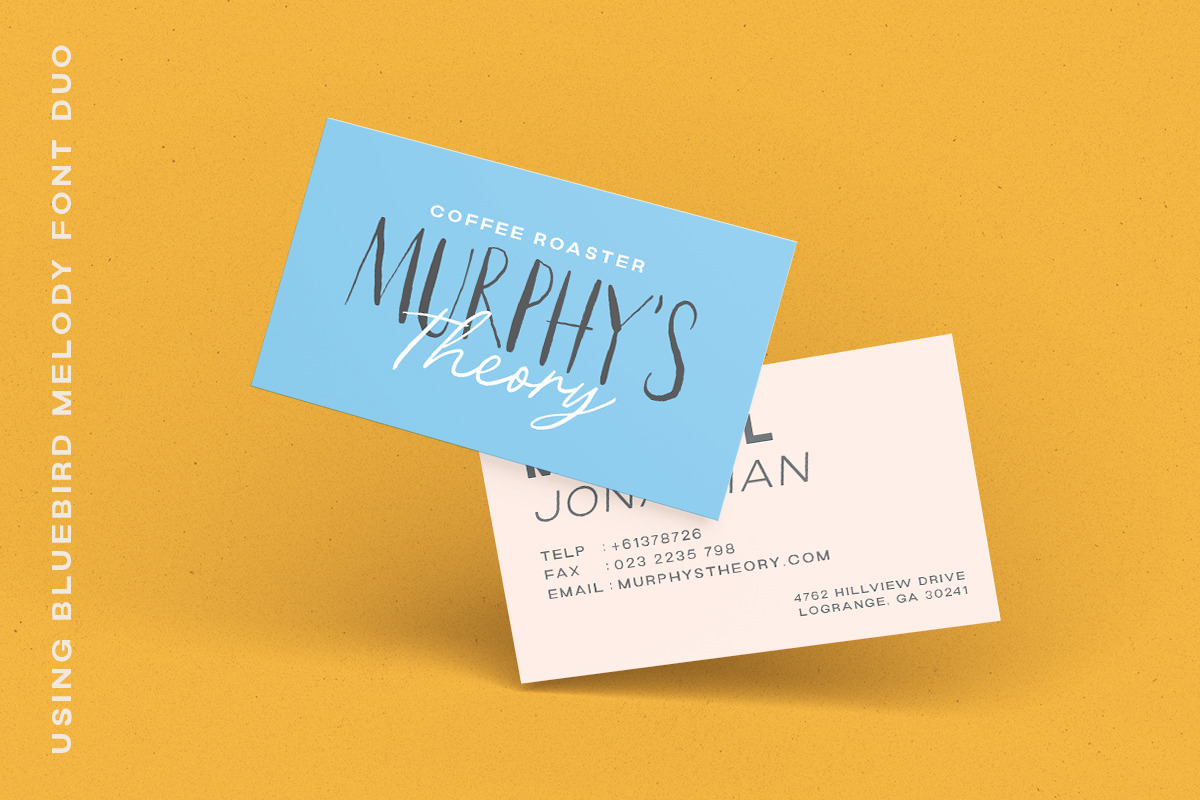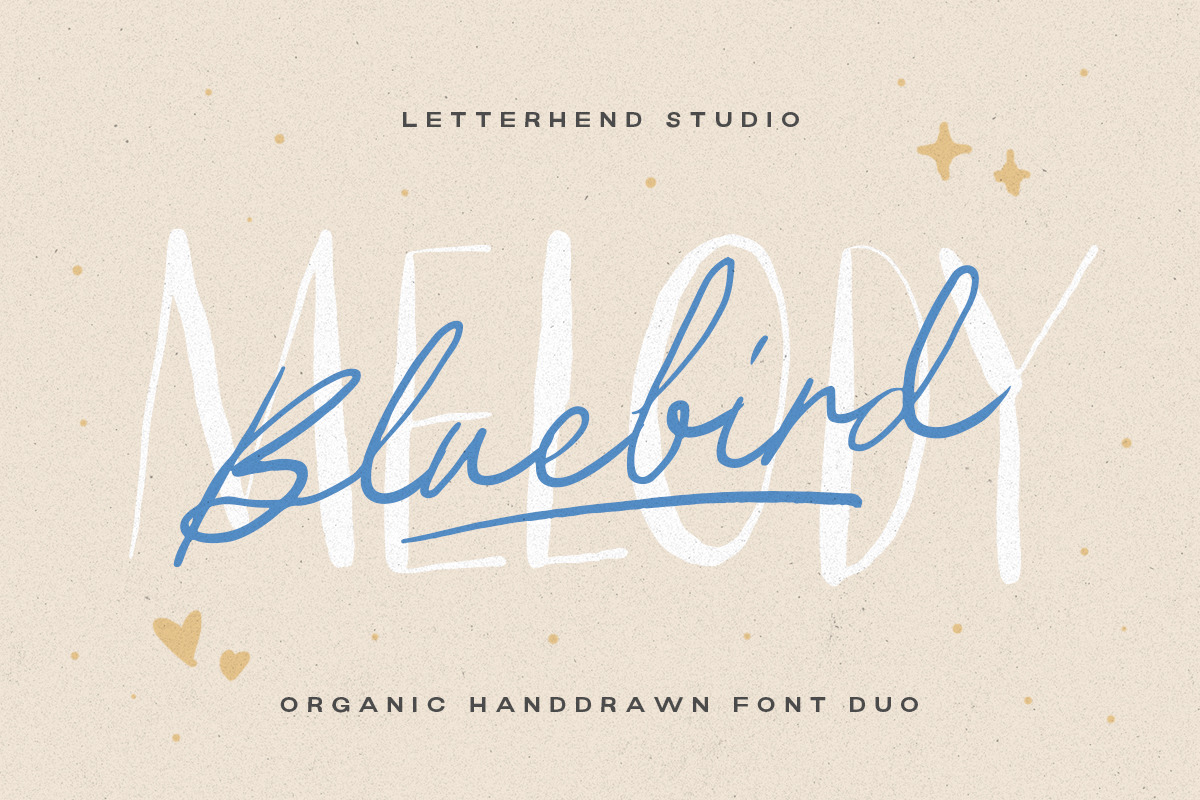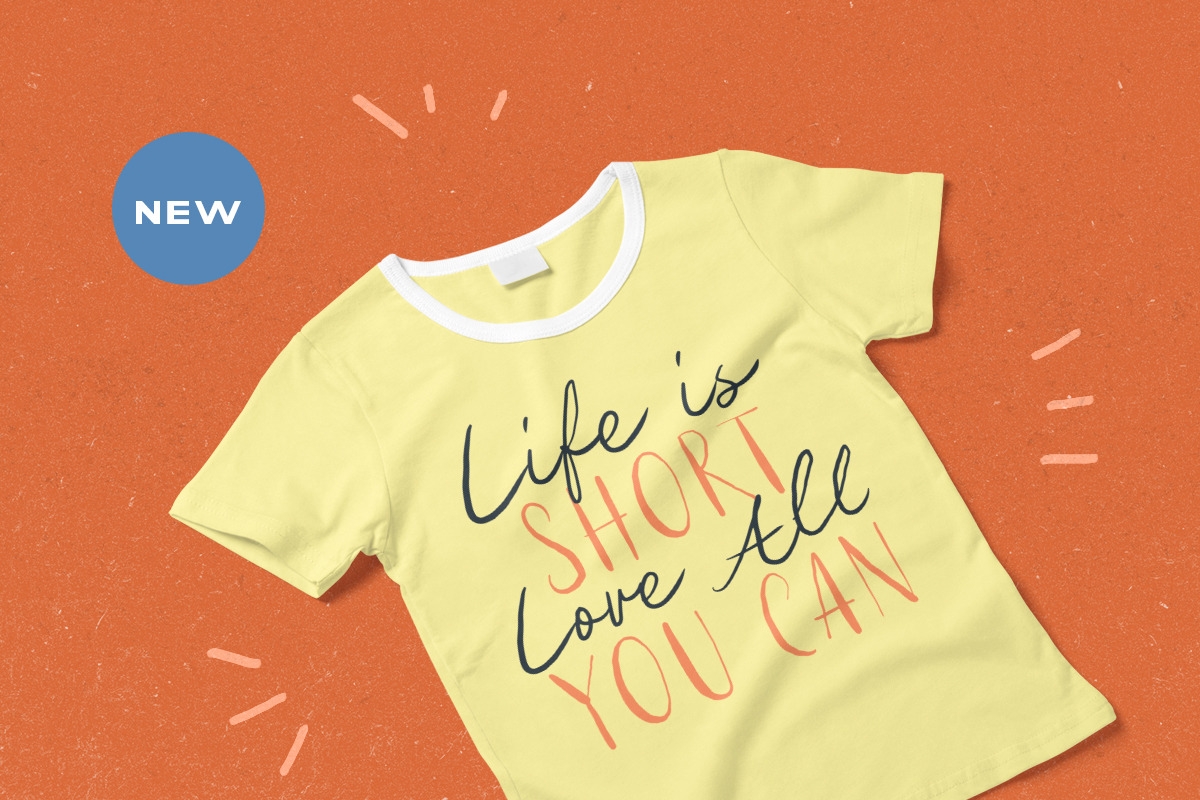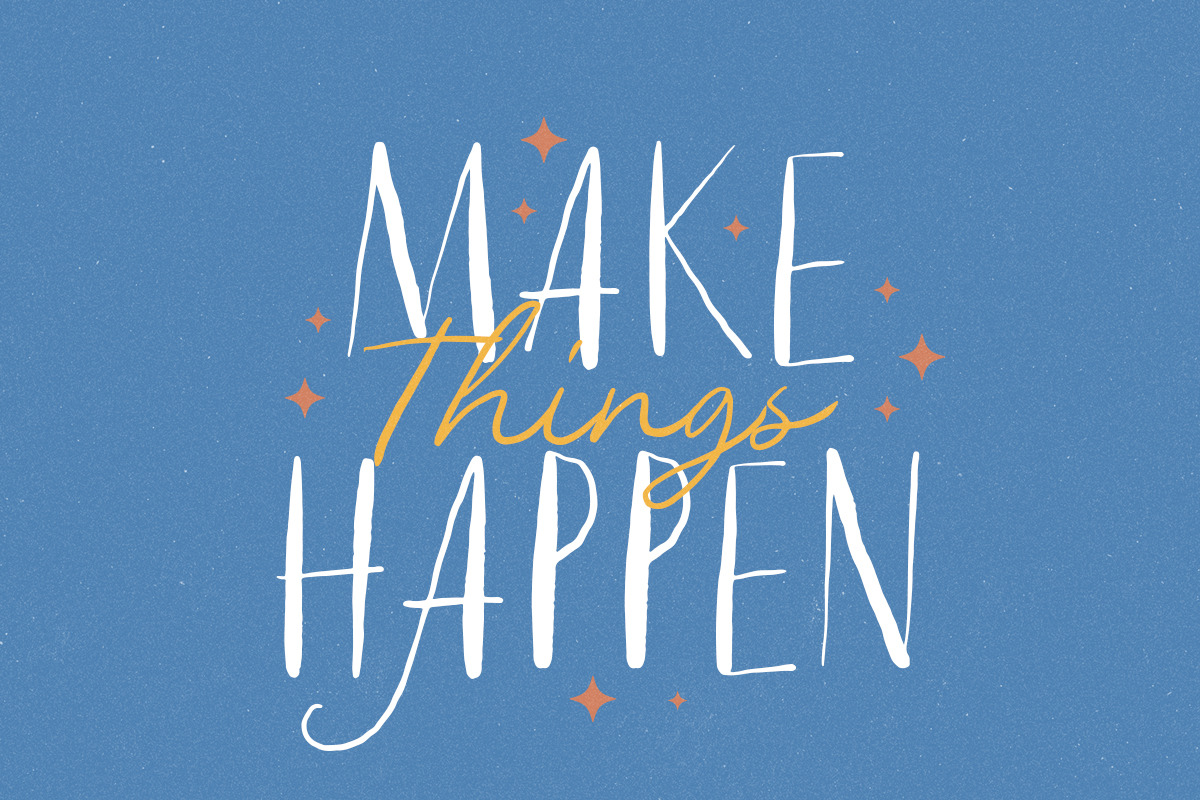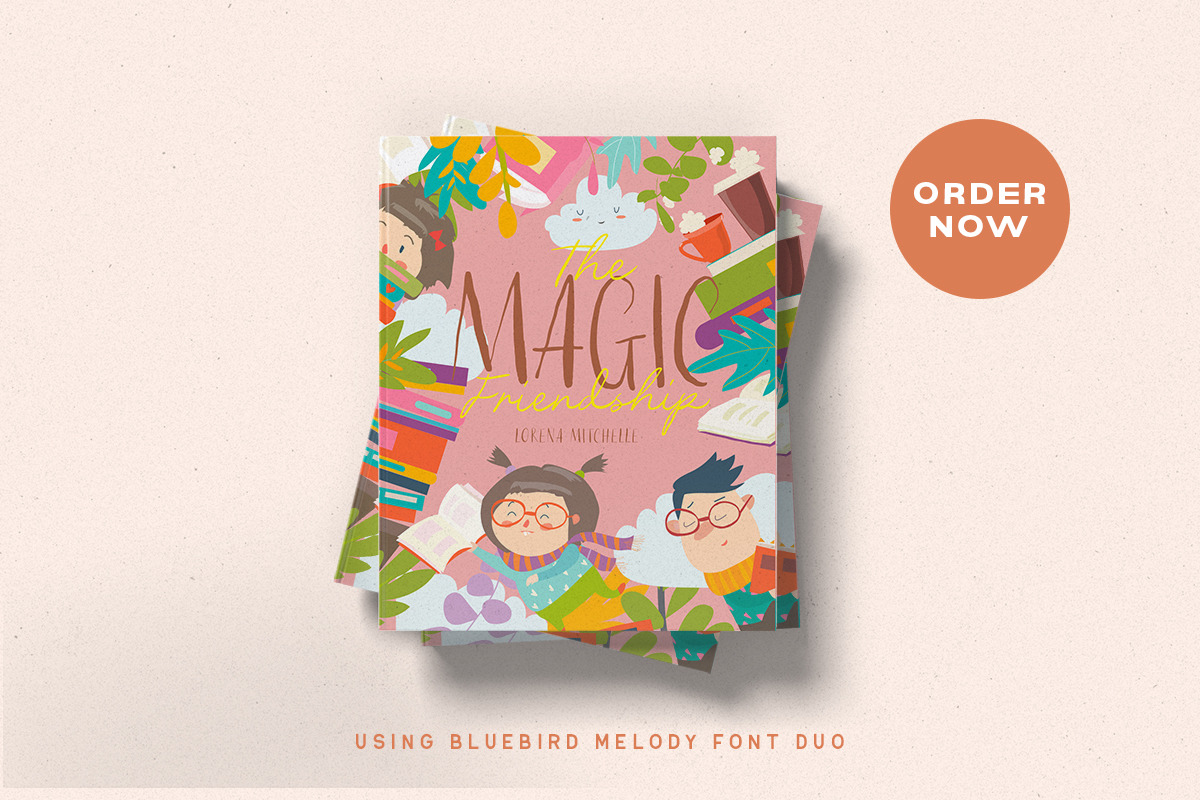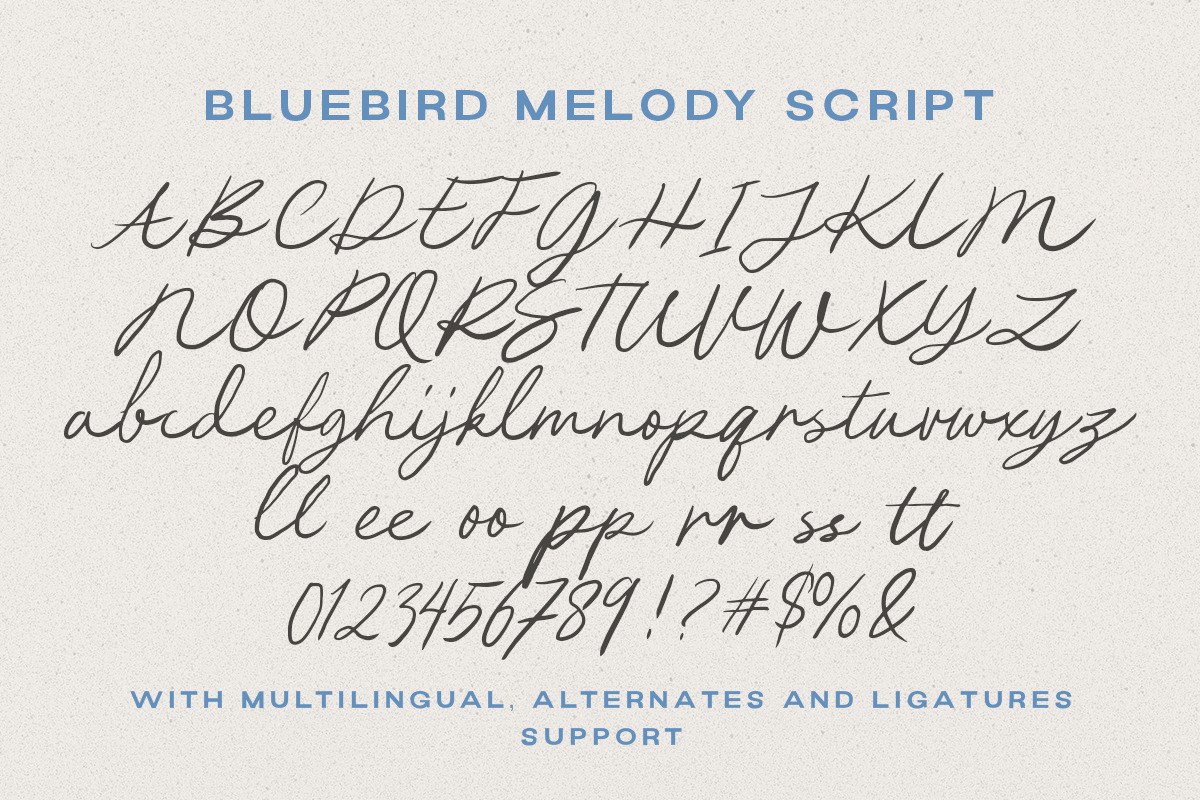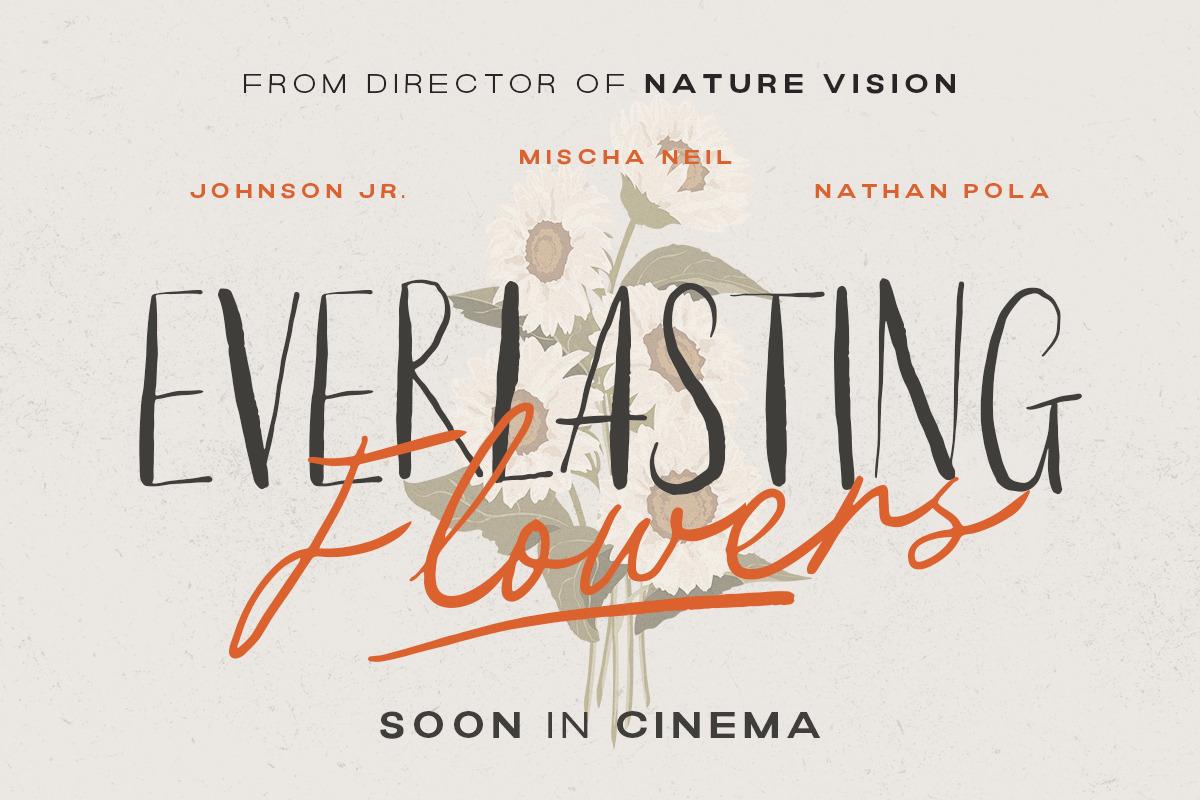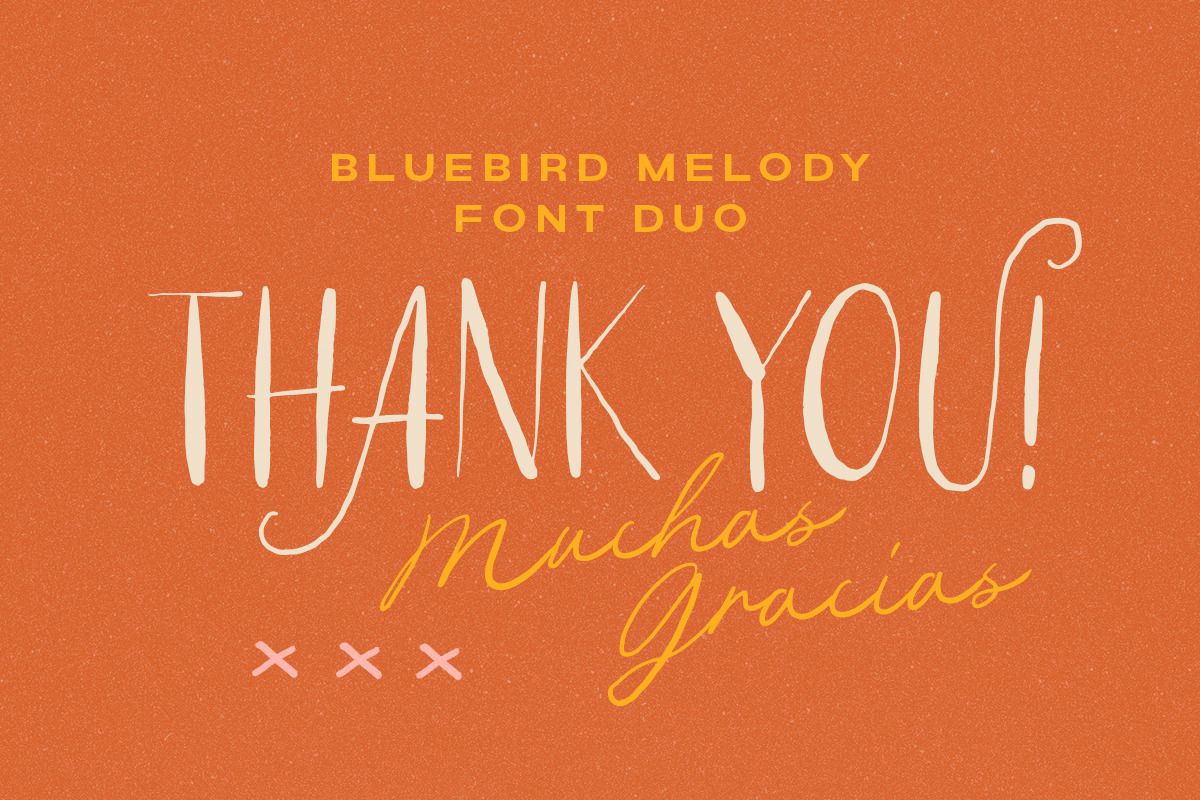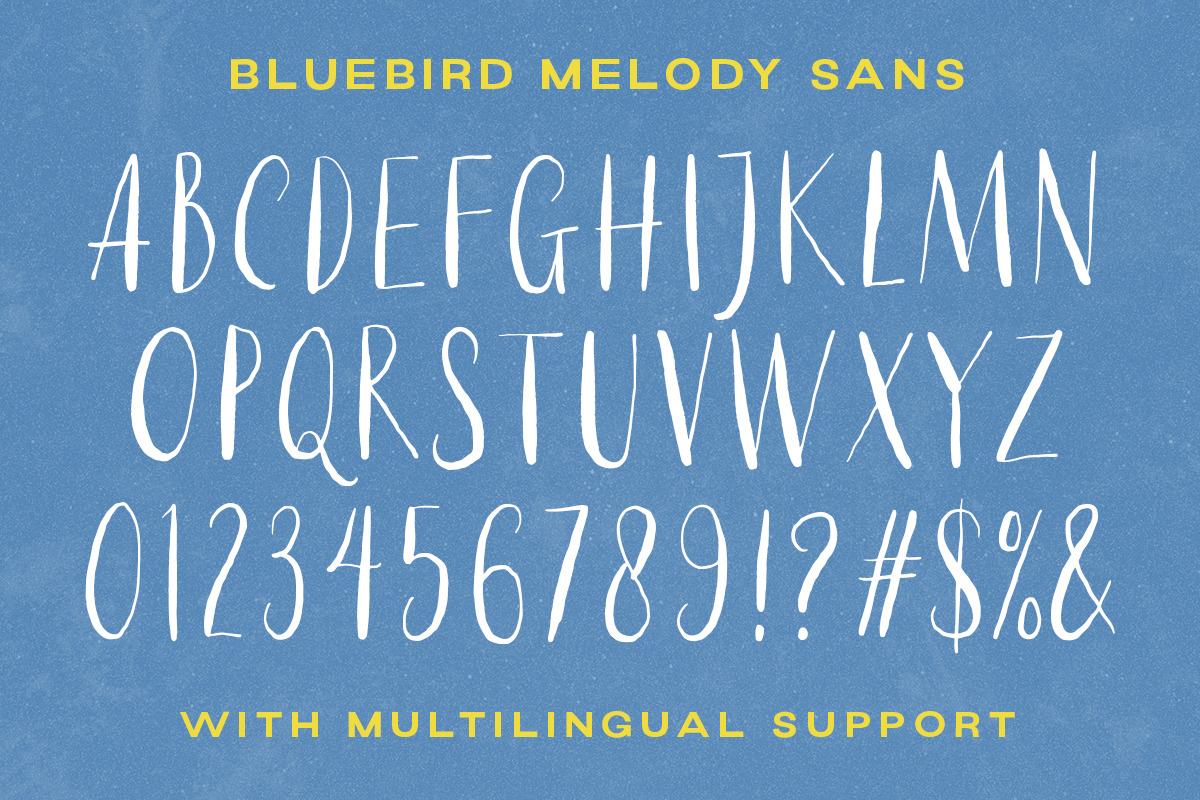
Bluebird Melody - Organic Font Duo
Experience the charm of Bluebird Melody, an exquisite font duo that combines a script and sans serif with a delightful organic hand writing style. The script font exudes elegance and grace, while the sans serif font adds a touch of modernity. This versatile duo is perfect for various applications, such as branding, logos, packaging, invitations, and more, where a blend of organic and handwritten aesthetics is desired to create a warm and personal touch.